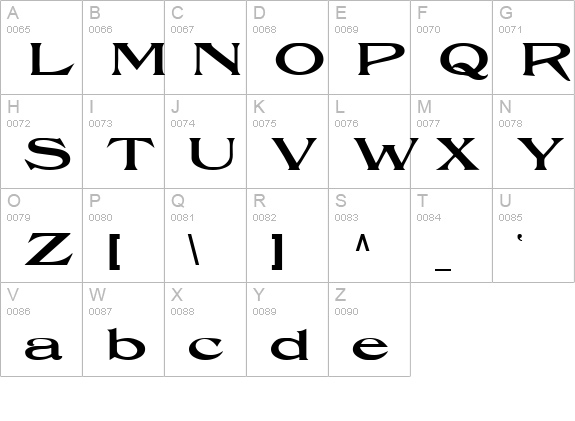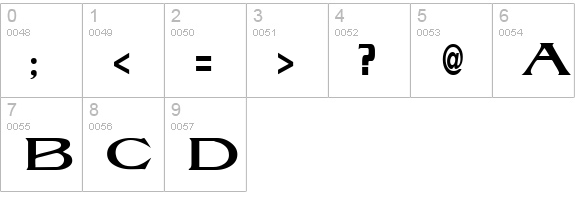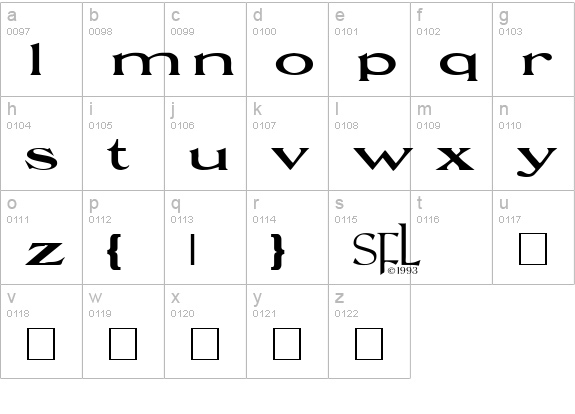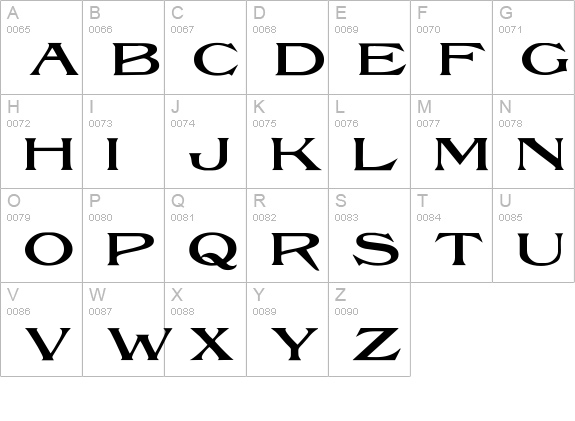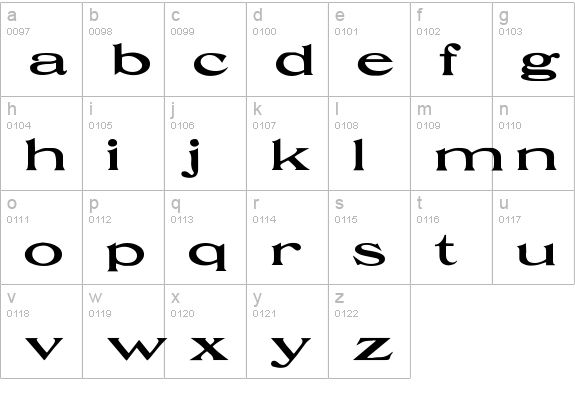
Durendal Font Details
Durendal font is a stunning display typeface that exudes elegance and sophistication. With its bold lines and graceful curves, this font is perfect for making a statement in your design projects. Whether you are creating a logo, poster, or website, Durendal font will add a touch of class and flair. Best of all, Durendal font is available for free download at FontsMarket.com. This means you can access this beautiful font without any cost, making it a valuable addition to your font library. Don't miss out on this opportunity to enhance your designs with the timeless appeal of Durendal font. Download it today and let your creativity shine!